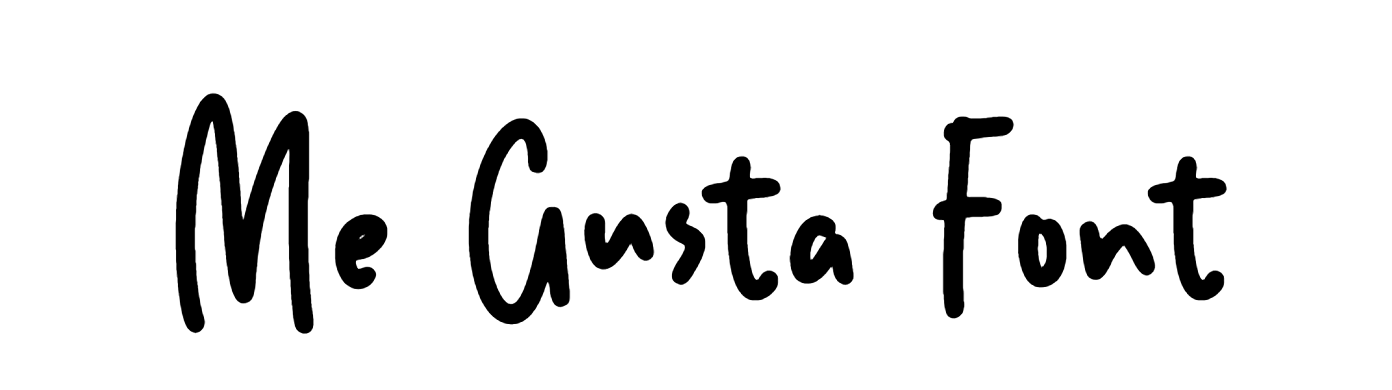
Me Gusta
Me Gusta is a handwritten font created by Vava Aryanto and released through FallenGraphic (2024). It has a casual, written-with-a-pen look that makes designs feel personal. It's a free download, and you can try it with your own text in the preview above first.
- Designer: Vava Aryanto
- Publisher: FallenGraphic
What You Can Type With Me Gusta
You get every letter from A to Z in both cases and all the numbers from 0 to 9, which means Me Gusta can handle full sentences, dates and prices. Everyday marks like &, !, ? and @ are there too. Thanks to its accented letters, it also works for Spanish, French, German, Portuguese and Italian, not just English.
How to Use the Alternate Letters in Me Gusta
Where Me Gusta Works Best
Designers usually reach for fonts like Me Gusta when they're making greeting cards, journal pages and friendly social posts. Set it a bit larger than you would a normal text font. Handwriting styles lose their charm once they get too small to read comfortably.
Does Me Gusta support accented letters?
Yes. Me Gusta includes the accented letters needed for Spanish, French, German, Portuguese and Italian, so it works for more than just English.